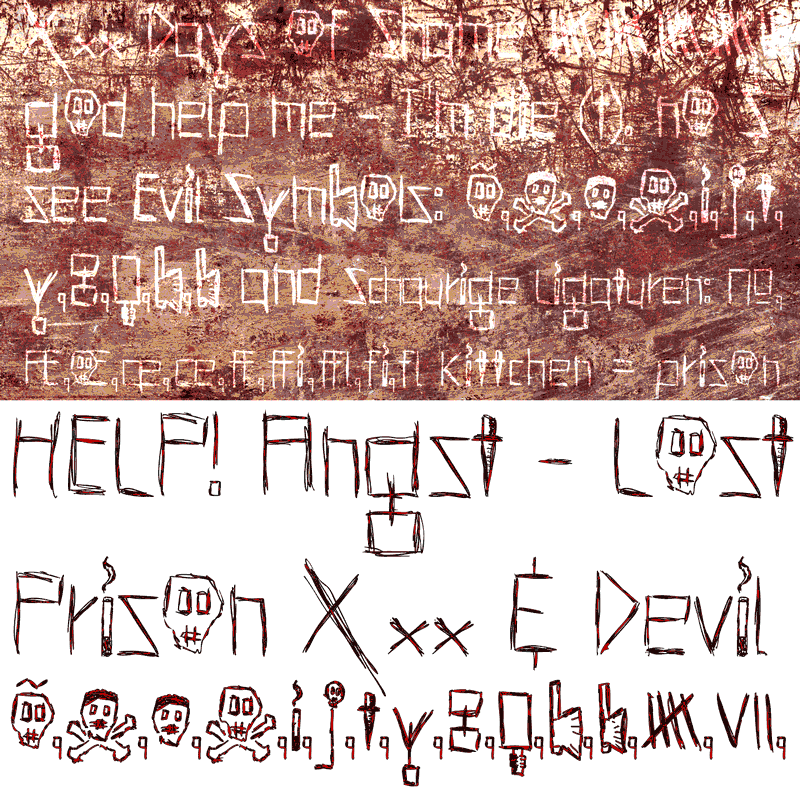
Preview and download Hells Kittchen Devil God Font. Created by Manuel Viergutz | Typo Graphic Design in Script Trash styles with Free for personal use license.
Headline Font / Display Font / Trash Script »Hells Kittchen Devil God« OpenType Font with 375 glyphs — many symbols/dingbats, alternative letters and ligatures (with accents &€) & 2 style (regular, bold) INFO If you want to use this font for commercial projects, please contact me: manuel-viergutz[at]gmx.de or donate an amount greater-than-or-equal 15€/$19 (for commercial licence). I also appreciate it if you send me links/images of your (non)-commercial work featuring this font. |